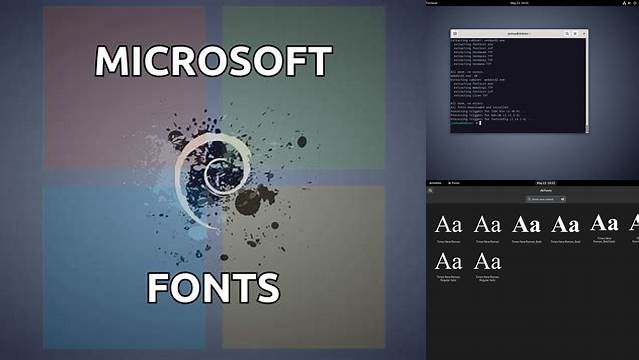
package, which provides a collection of popular Microsoft Core fonts. These fonts, including Arial, Times New Roman, Courier New, and more, are widely used in documents, web pages, and other applications, ensuring consistent rendering across different platforms. Let's dive in and get those fonts installed, guys!
Why Install Microsoft Core Fonts?
Before we jump into the installation process, let's discuss why you might want to install these fonts in the first place. The Microsoft Core fonts were initially released by Microsoft to promote standardization in digital typography. These fonts became incredibly popular and are now considered essential for many users. Here are a few reasons why you might want to install them on your Debian system:
- Document Compatibility: Many documents, especially those created in Microsoft Word or other Microsoft Office applications, use these fonts. Installing them ensures that these documents will display correctly on your Debian system, preserving the intended formatting and layout.
- Web Browsing: Websites often specify these fonts in their stylesheets. Having them installed ensures that web pages will render as intended, without falling back to default fonts that may not be visually appealing or consistent with the website's design. When browsing the web, you want the text to look exactly how the designer intended, right? These fonts help make that happen!
- Cross-Platform Consistency: If you share documents or collaborate with users on other operating systems, such as Windows or macOS, having the same fonts installed ensures consistency in how your documents appear across different platforms. This is super important for collaboration and avoiding those annoying formatting issues. Imagine sending a beautifully formatted document, only to have it look completely different on the recipient's computer. Installing these fonts helps prevent such headaches!
- Improved Visual Experience: Let's face it, some default fonts just aren't that pretty. The Microsoft Core fonts are generally considered to be well-designed and aesthetically pleasing. Installing them can improve the overall visual experience of your Debian system, making everything look a bit more polished and professional. A good set of fonts can really make a difference in how you perceive your system and the content you view on it. It's like giving your system a visual upgrade!
- Legacy Support: There are still many older documents and applications that rely on these fonts. Installing them ensures that you can properly view and use these resources without any compatibility issues. You never know when you might encounter an old file that needs these fonts, so it's always good to have them on hand.
In summary, installing the Microsoft Core fonts on your Debian system is a simple yet effective way to improve document compatibility, web browsing, cross-platform consistency, visual experience, and legacy support. It's a small step that can make a big difference in your overall computing experience.